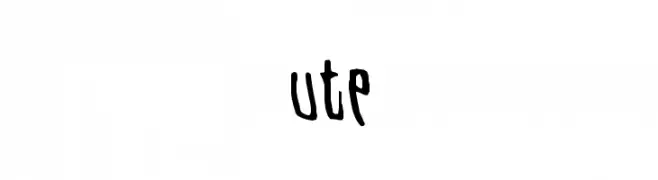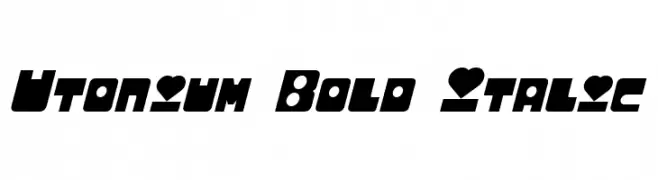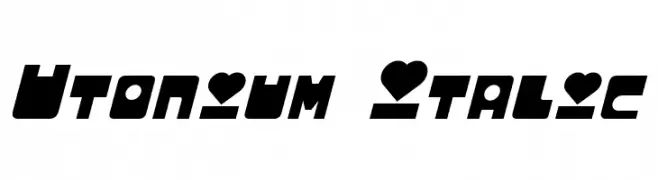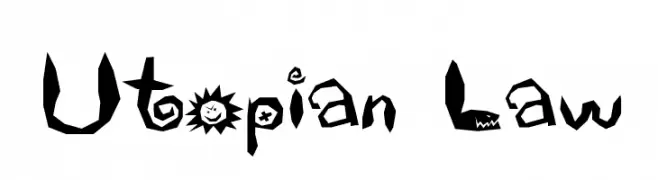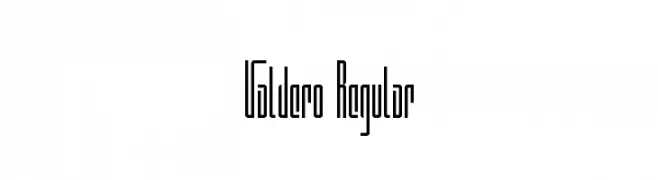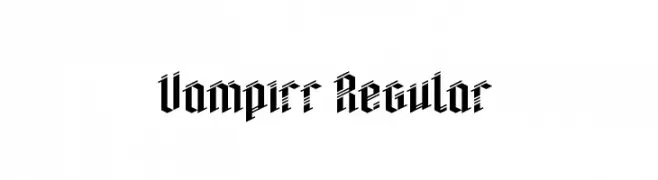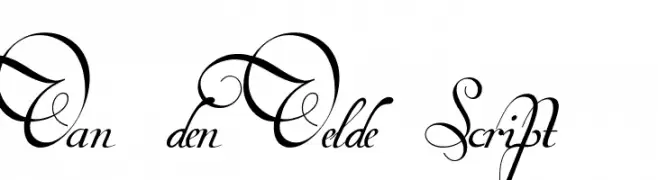
• Ute
A quirky, hand-drawn font with irregular, organic shapes.
• Utonium
A bold, geometric font with playful, modern elements and strong visual impact.
• Utonium Bold
A bold, geometric font with playful heart motifs and strong visual impact.
• Utonium Bold Italic
A bold, italicized font with geometric shapes and playful design elements.
• Utonium Italic
A bold, geometric italic font with a playful and dynamic style.
• Utopian Law
• Valdero Regular
• Vampire Street
An ornate and decorative script font with intricate loops and swirls.
• Vampirr Regular
A bold, gothic-style font with a blackletter influence.
• Van den Velde Script